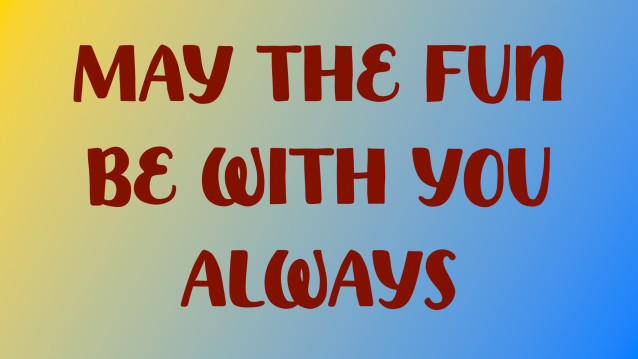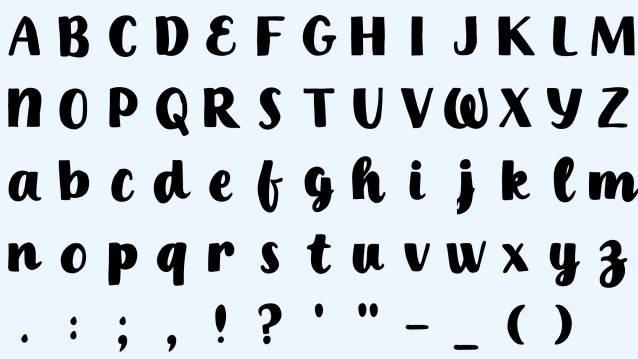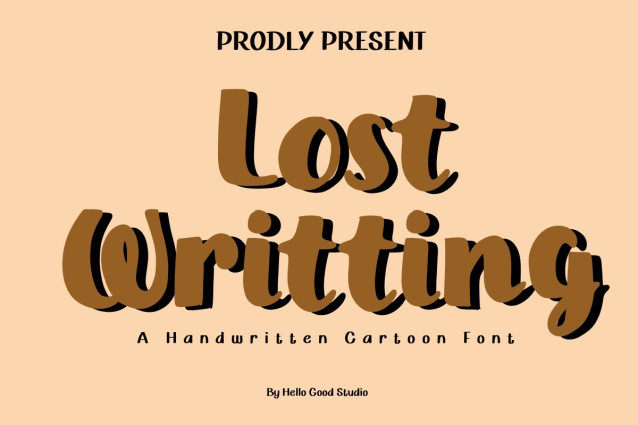
Lost Writting Font
Lost Writting Font, it would be a perfect choice to design posters, affiches, logos, t-shirt and magazine prints, eye-pleasing typographic designs and more.